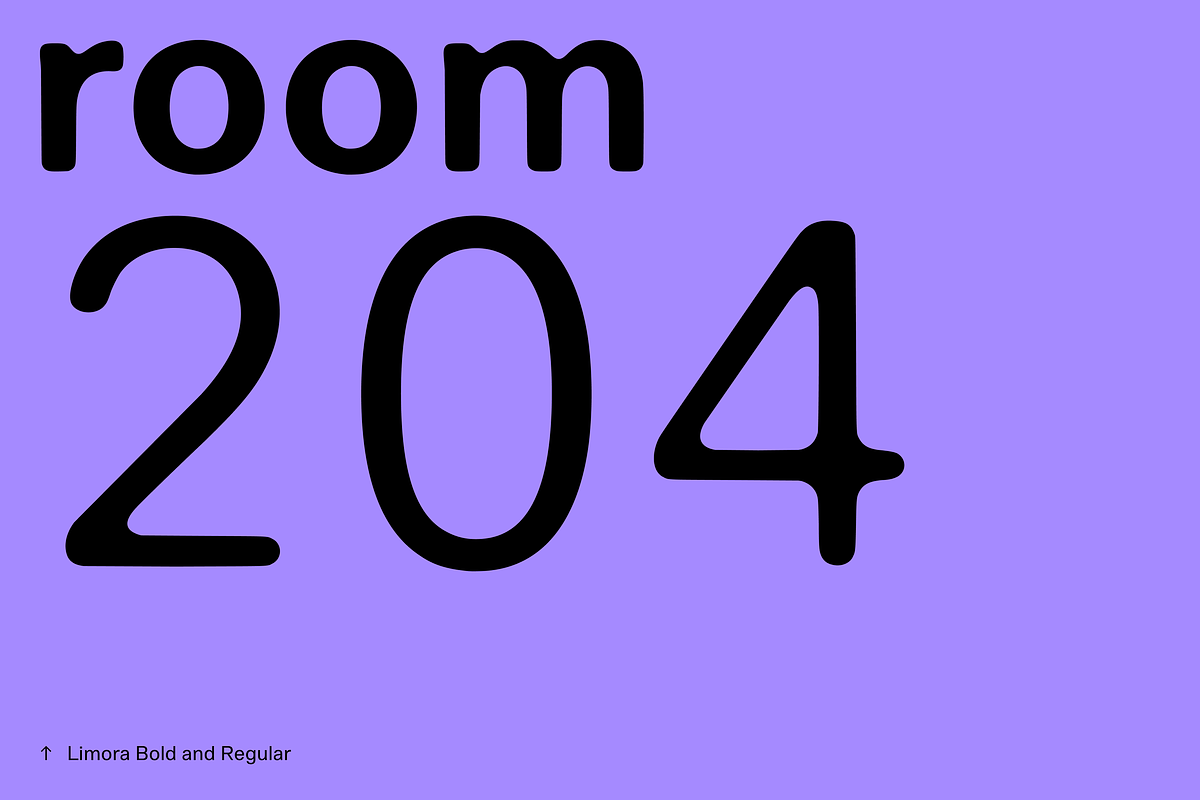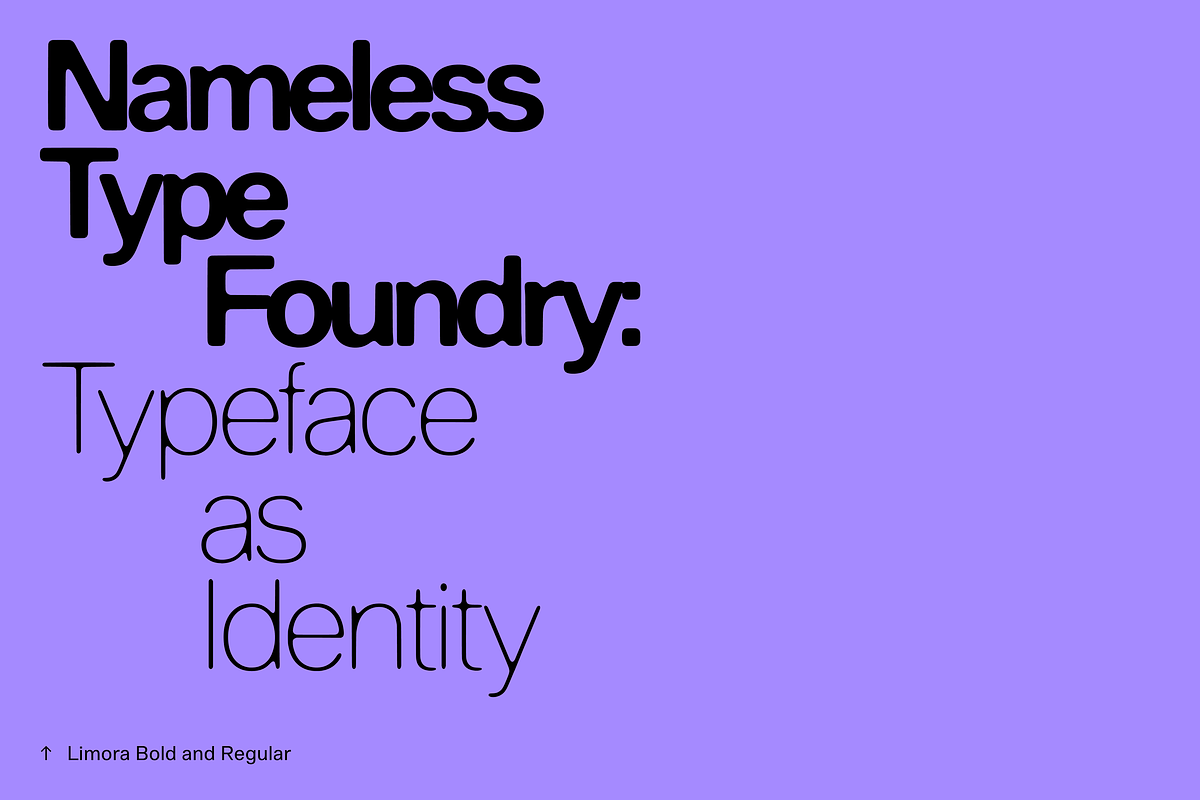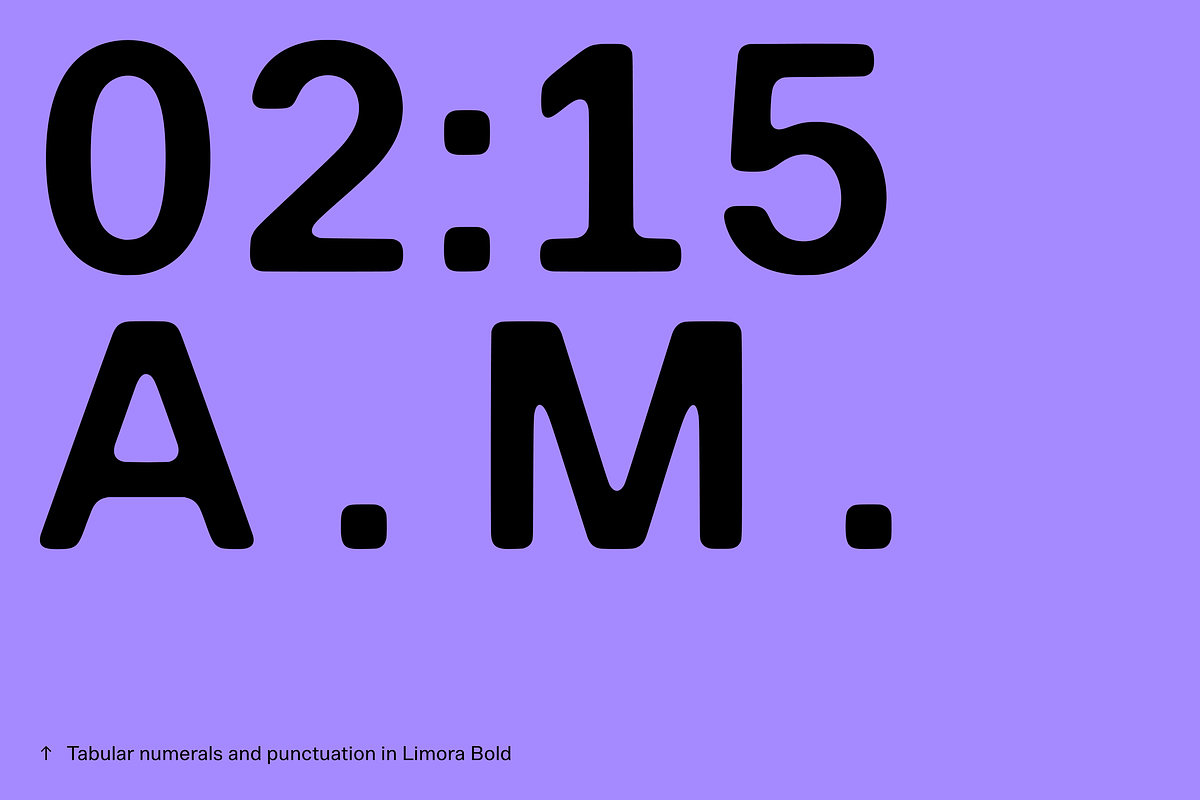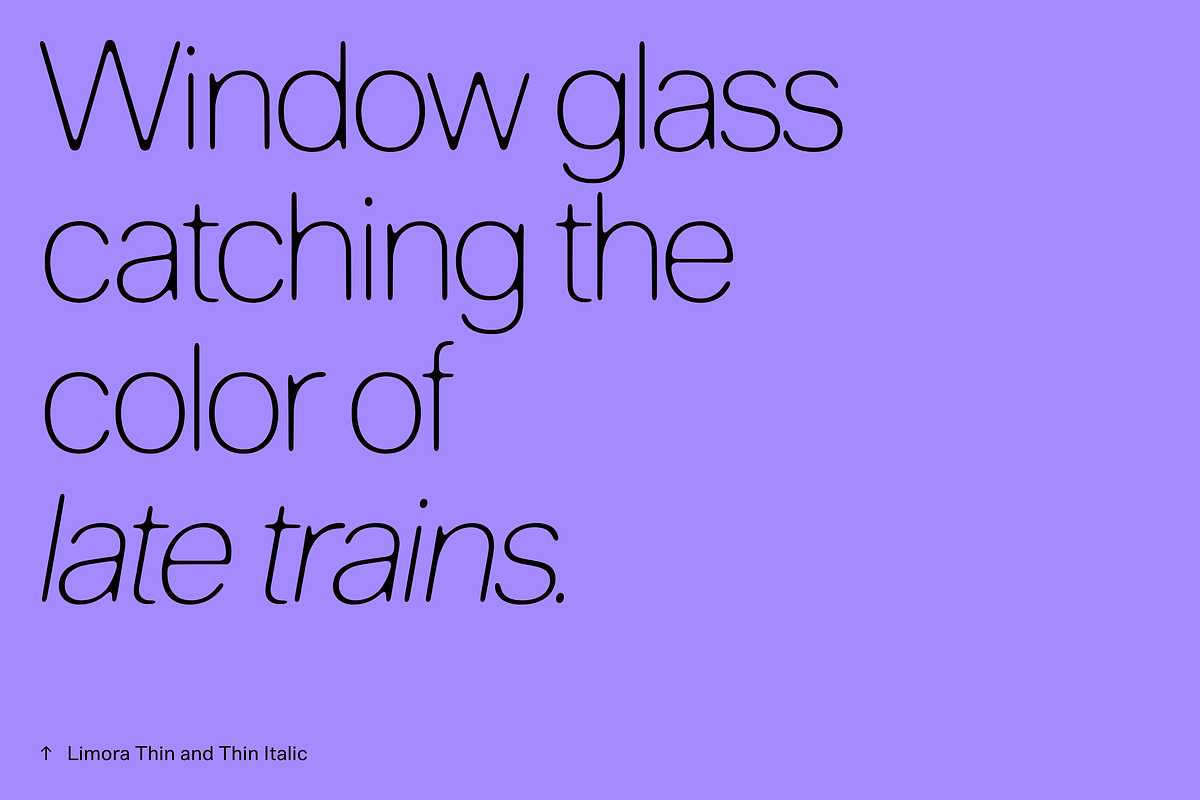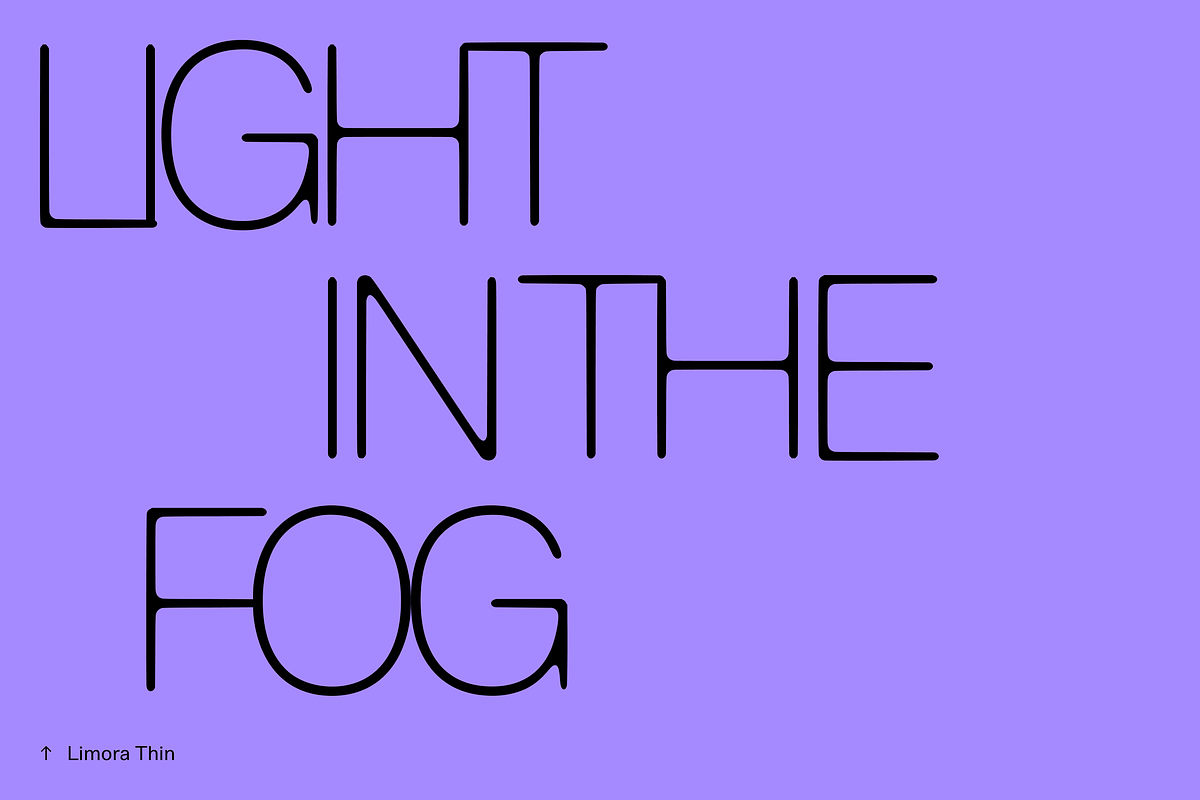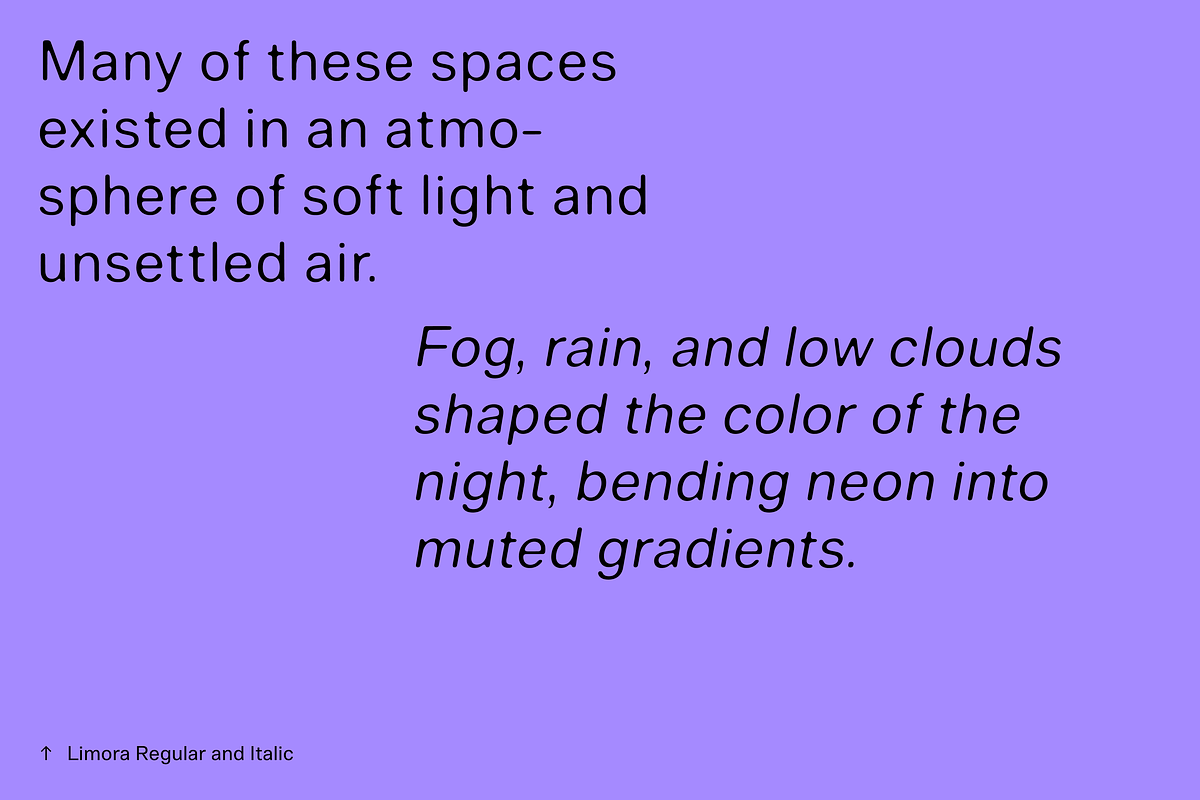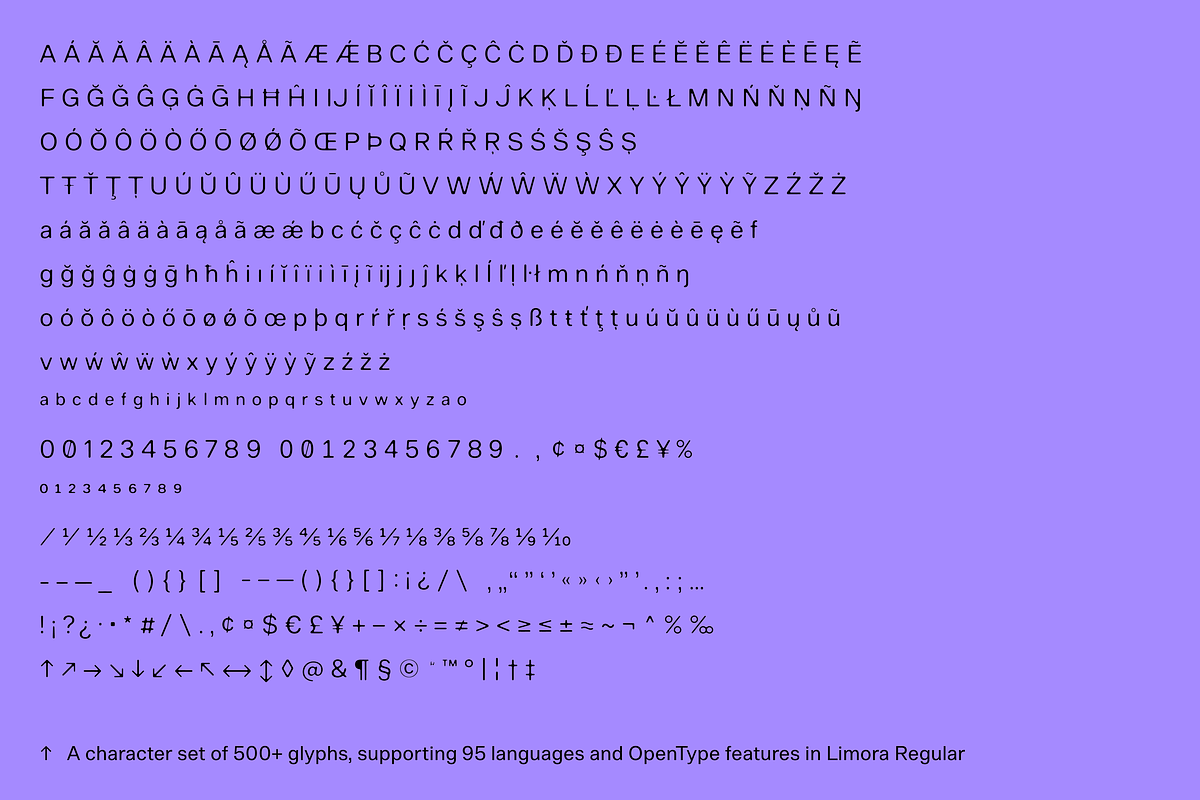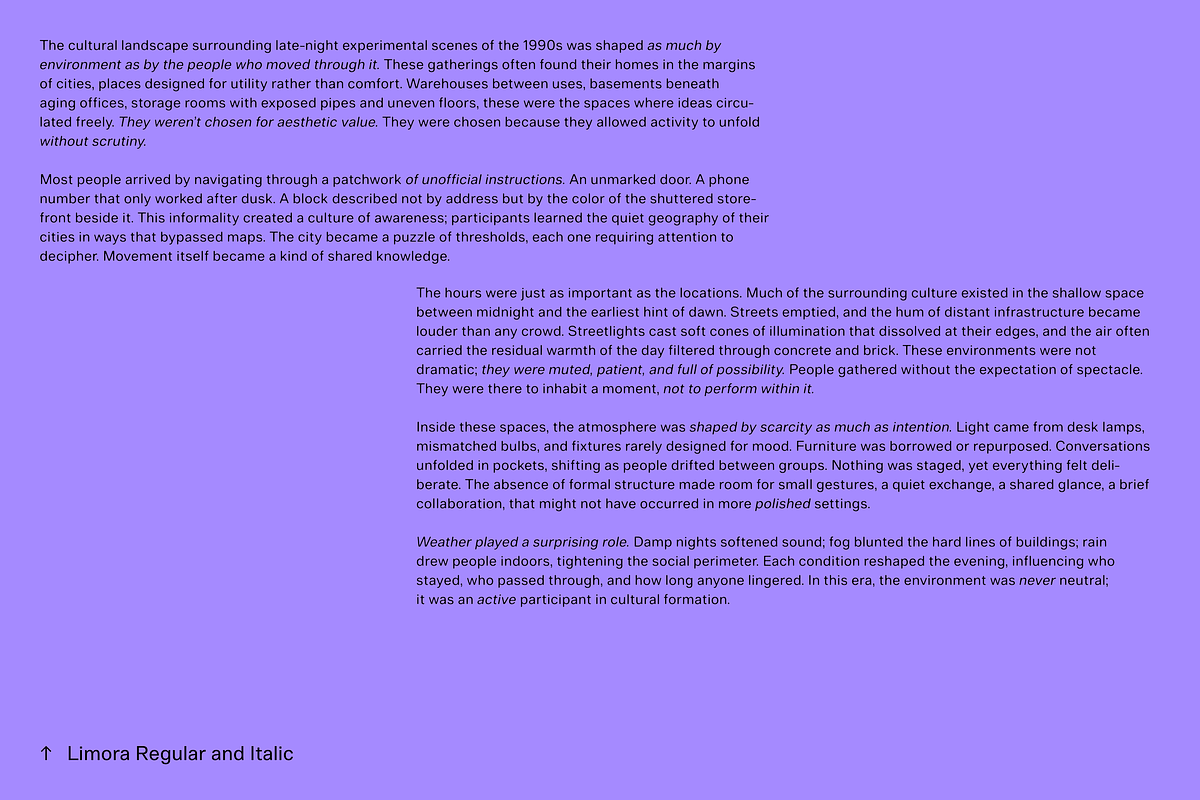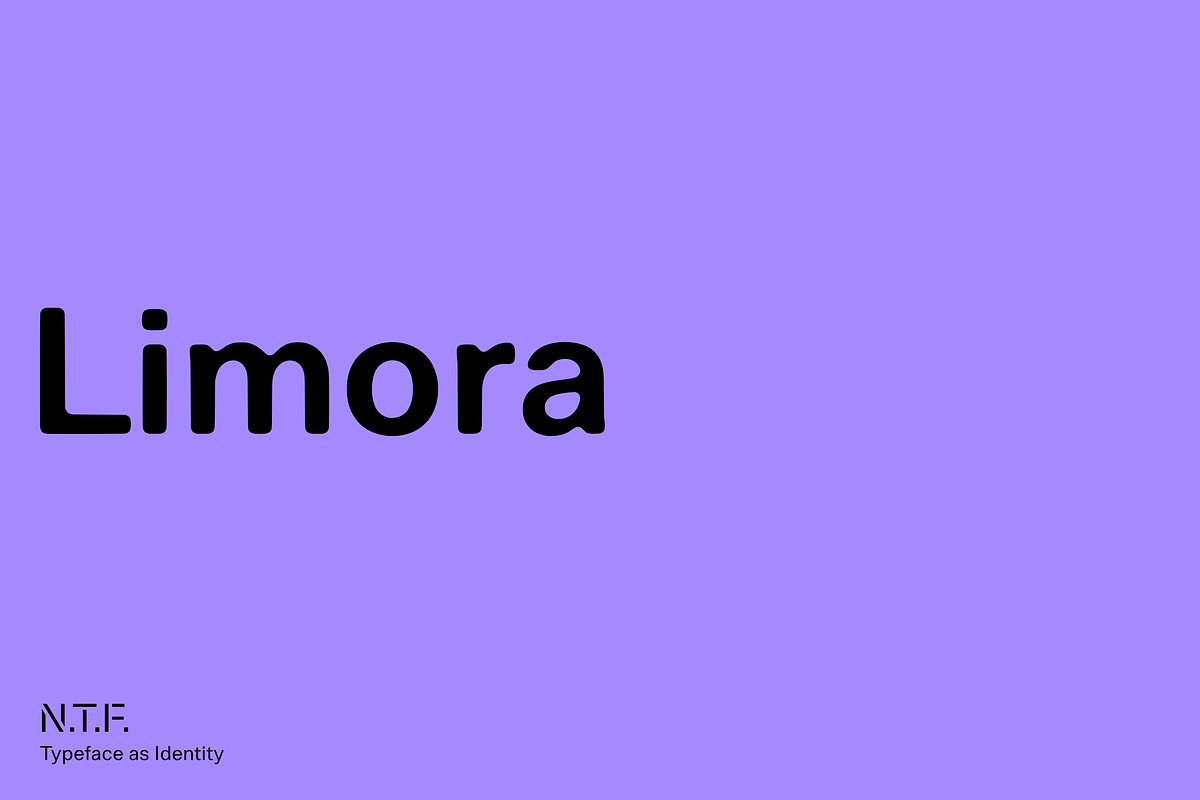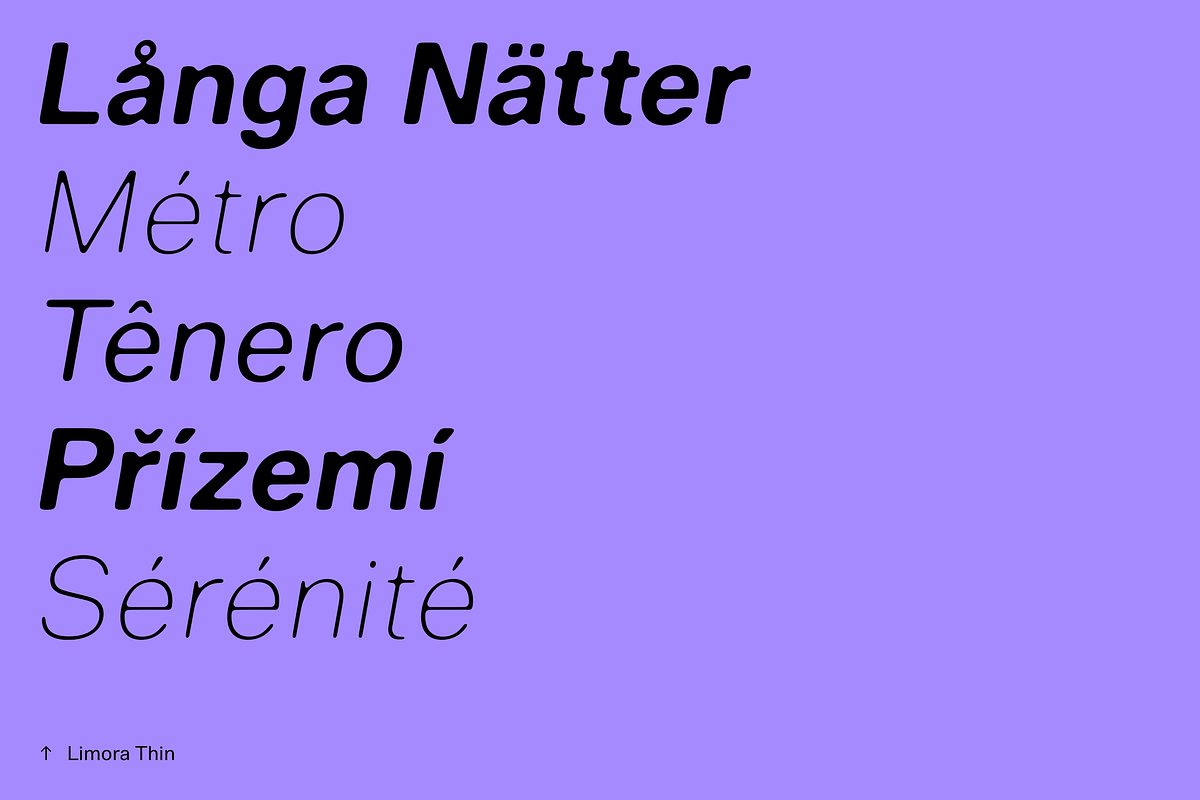
Limora
Limora is a neutral neogrotesk built to soften the tone of a layout without loosening its structure. It keeps the clarity, even color, and quiet authority of a conventional grotesk, but its eased surface changes how that neutrality lands — present and composed rather than sharp or clinical. The effect is a typeface that stays out of the way when it should, yet leaves a setting feeling considered and calm rather than cold.
In running text, that ease translates to a smoother read: the page holds together with less edge noise, and long passages feel steady rather than tiring. At larger sizes it shifts register cleanly, lending headlines and identities a measured warmth without sacrificing the precision a brand face depends on. Six styles and full italics give a system room to move between voices while staying recognizably one family.
With support for 95 languages and a broad set of OpenType features, Limora is suited to identity, editorial, and interface work alike — anywhere a designer wants the neutrality of a grotesk but not its severity. It works as a primary brand face, a dependable text family, or a display sans, and leaves whatever it sets feeling a little more at ease.